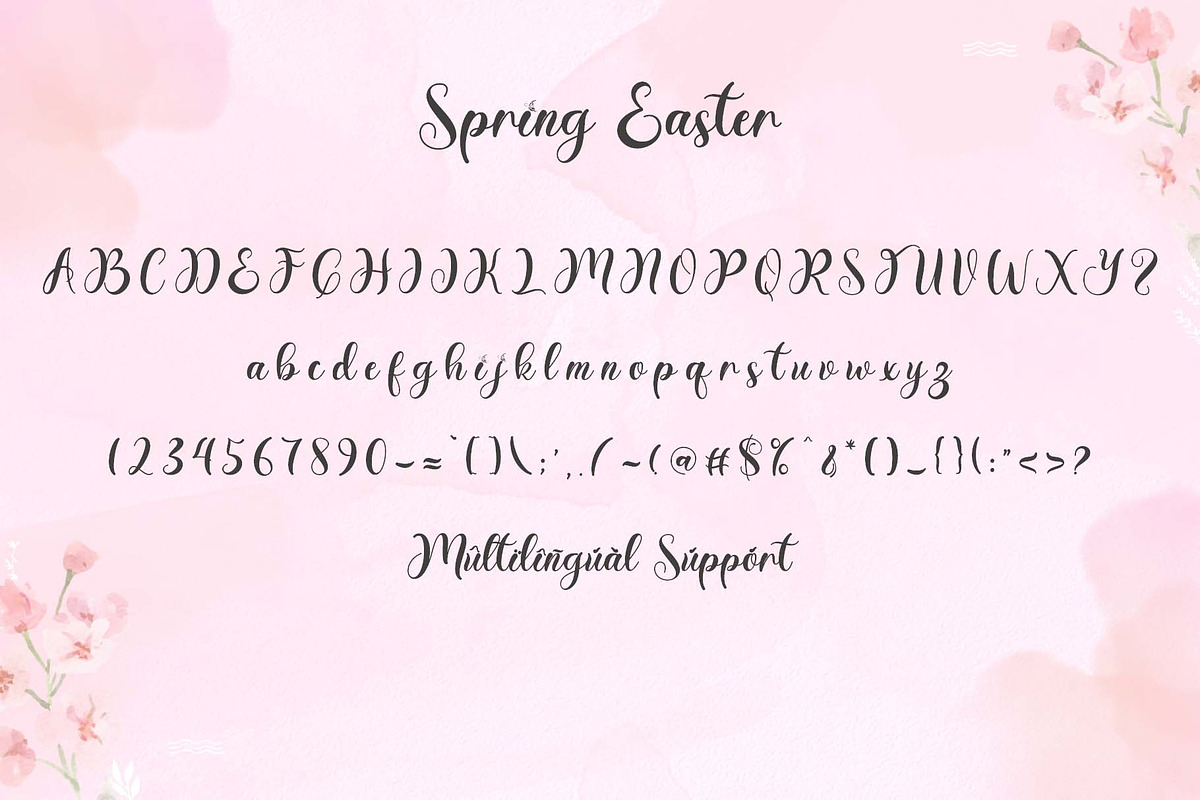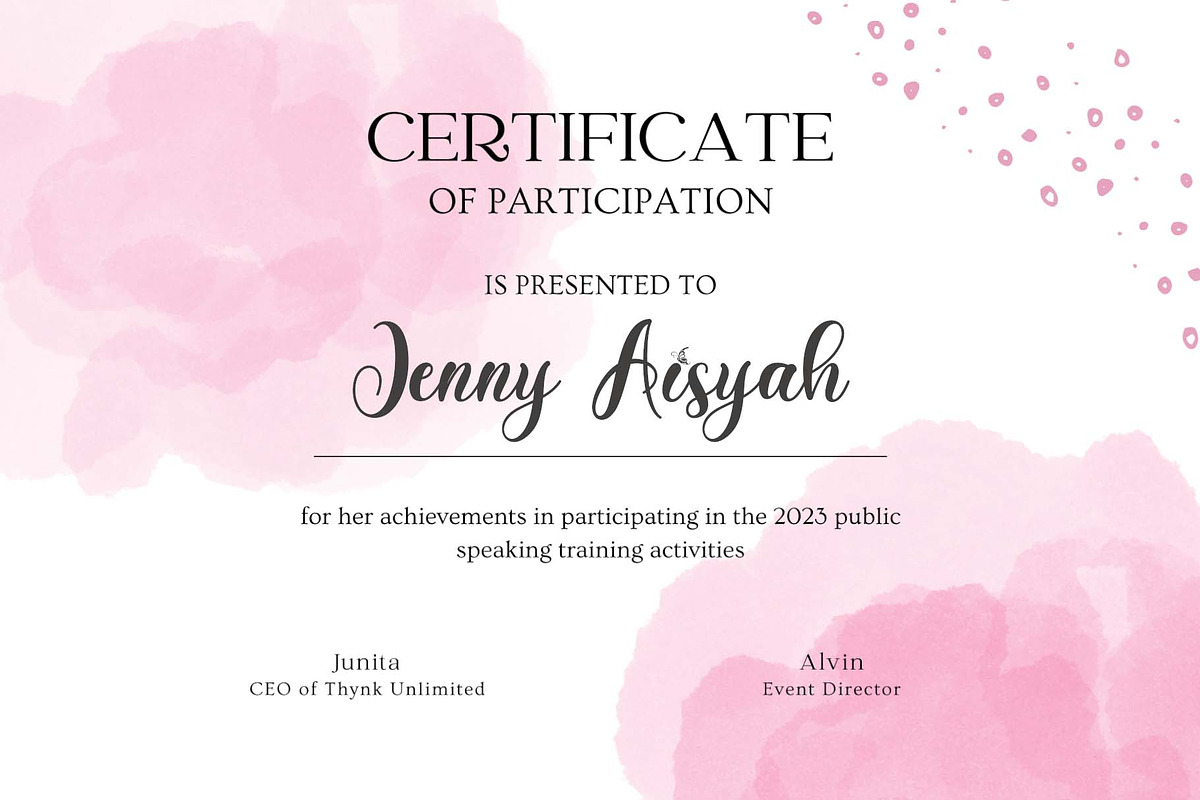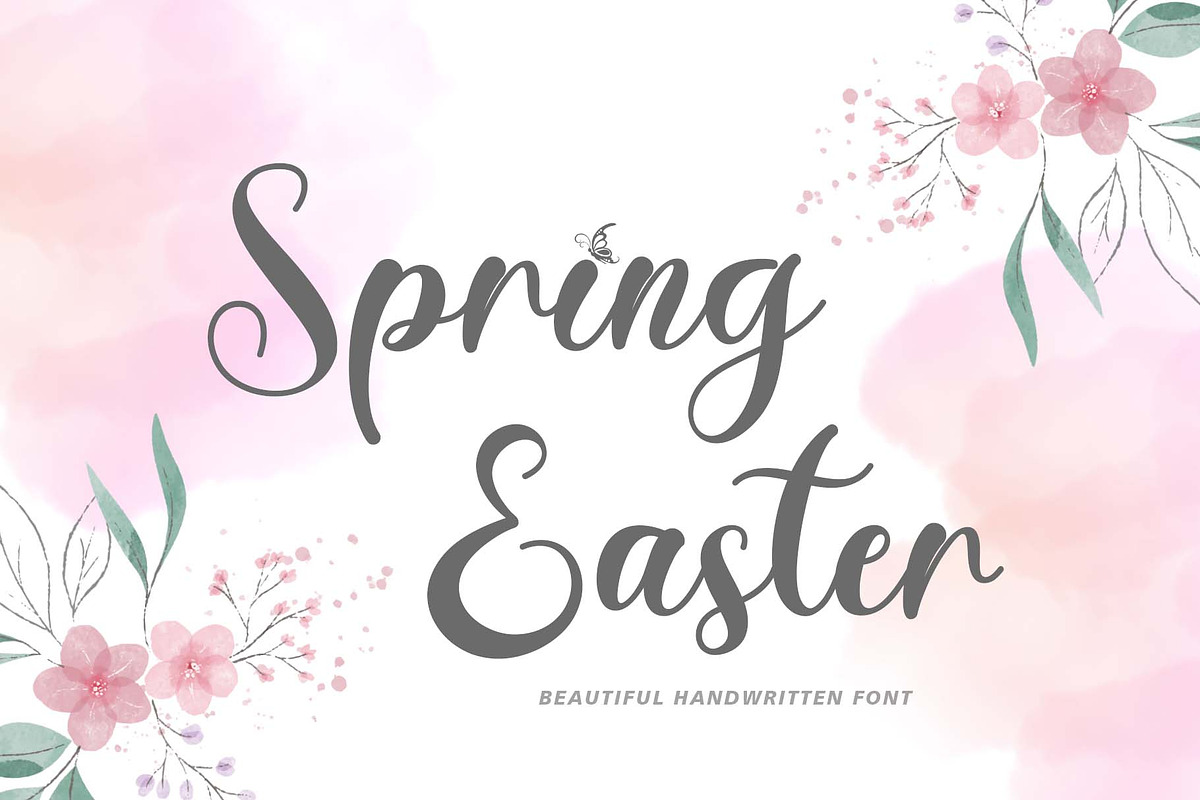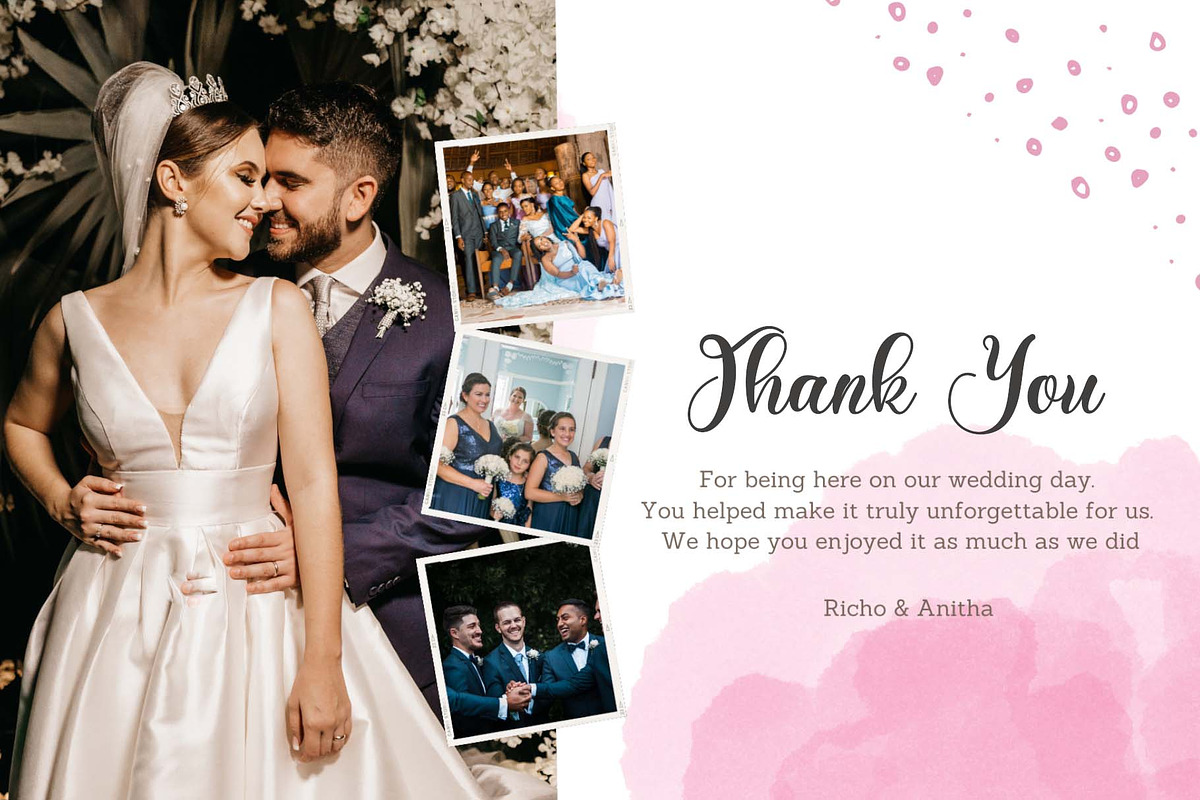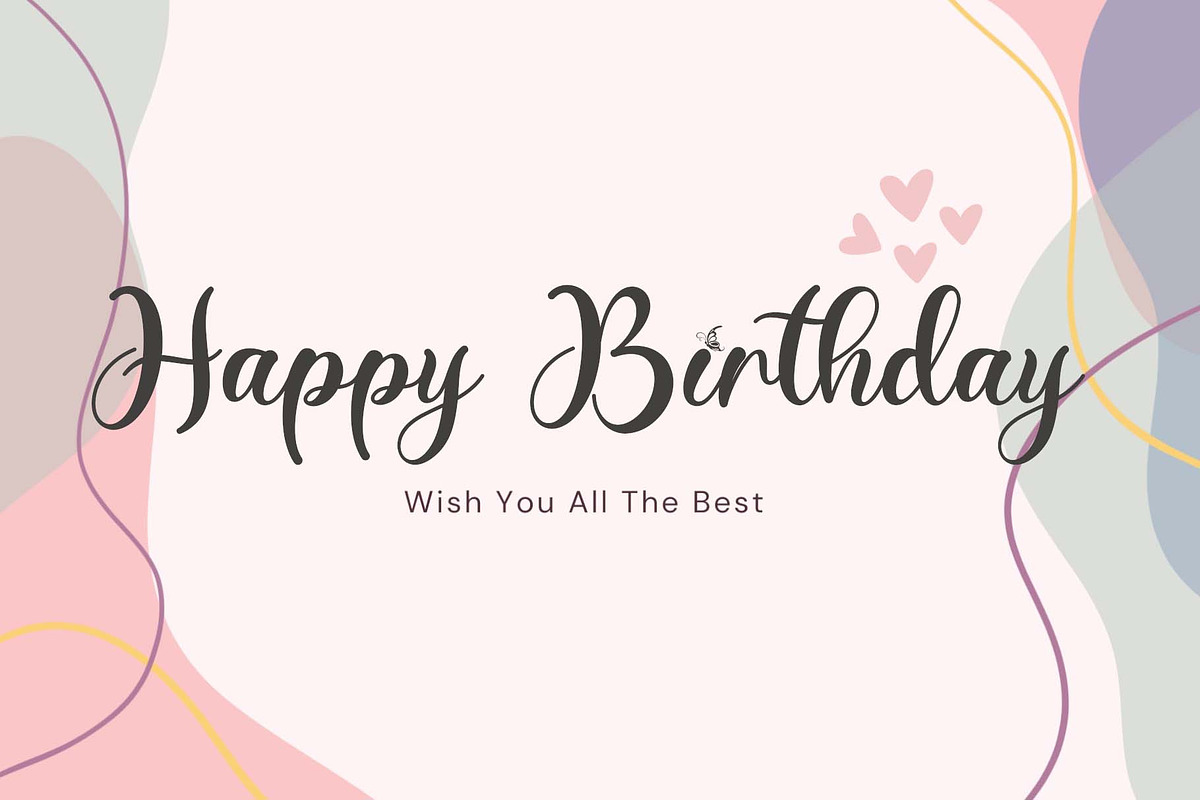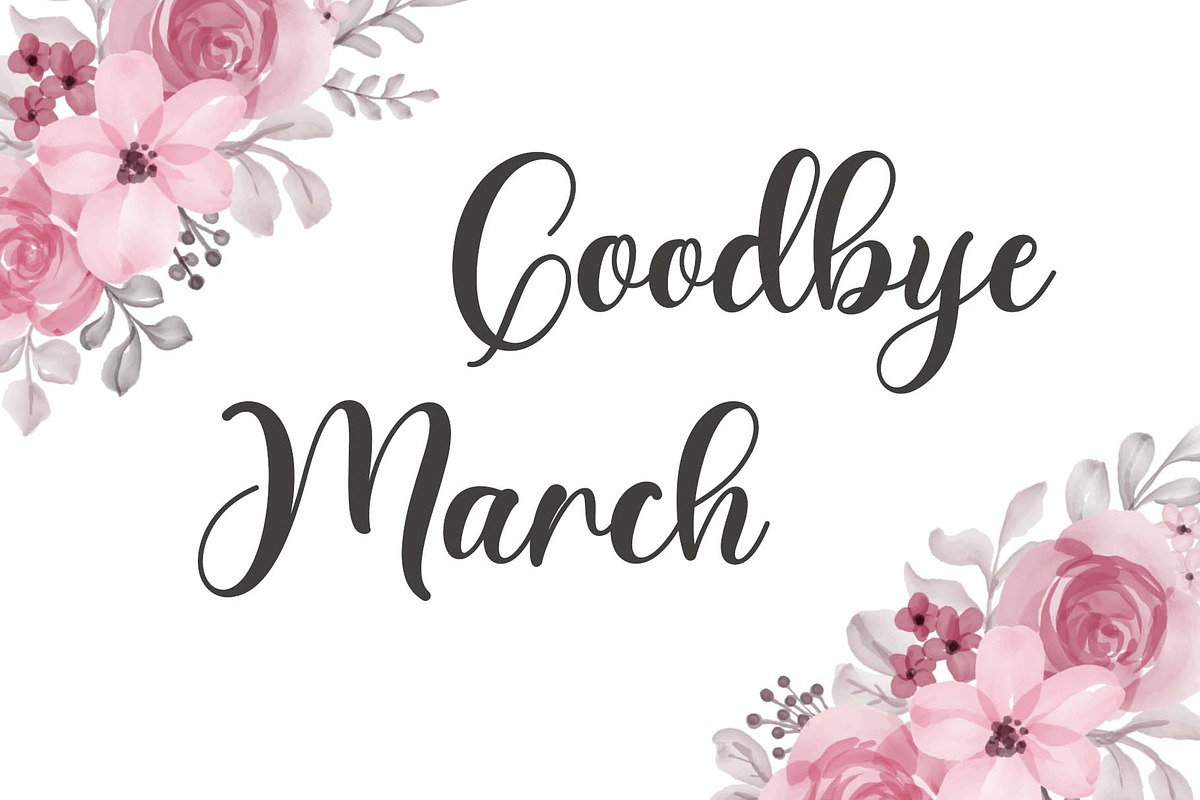
Spring Easter
"Spring Easter" is a very beautiful and elegant handwritten font. This font is very easy to use because it has been specially designed. Equipped with uppercase, lowercase, numerals, punctuation, and multilingual support. It is suitable for birthdays, weddings, engagements, spring, summer, Easter, stickers, banners, posters, and others.